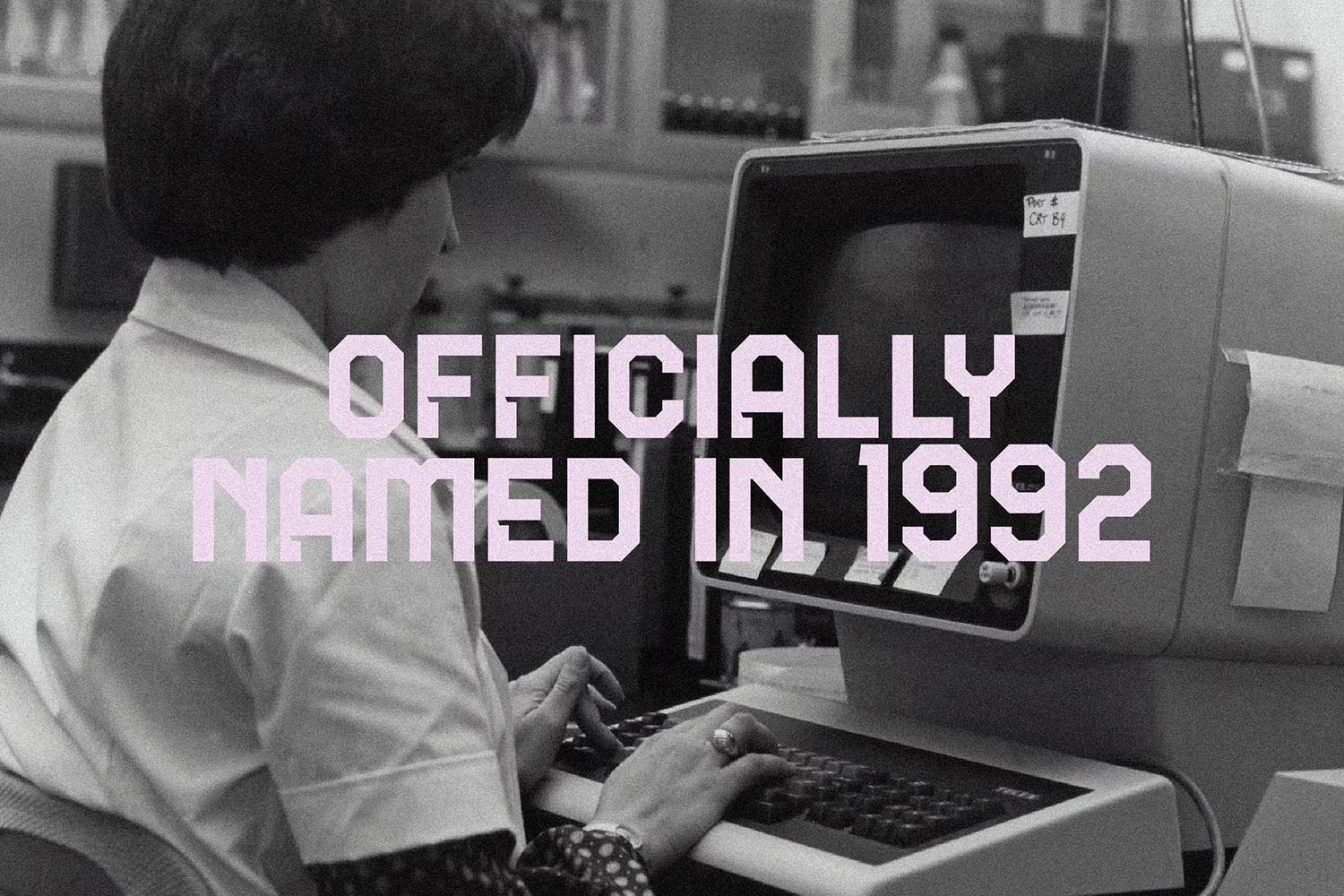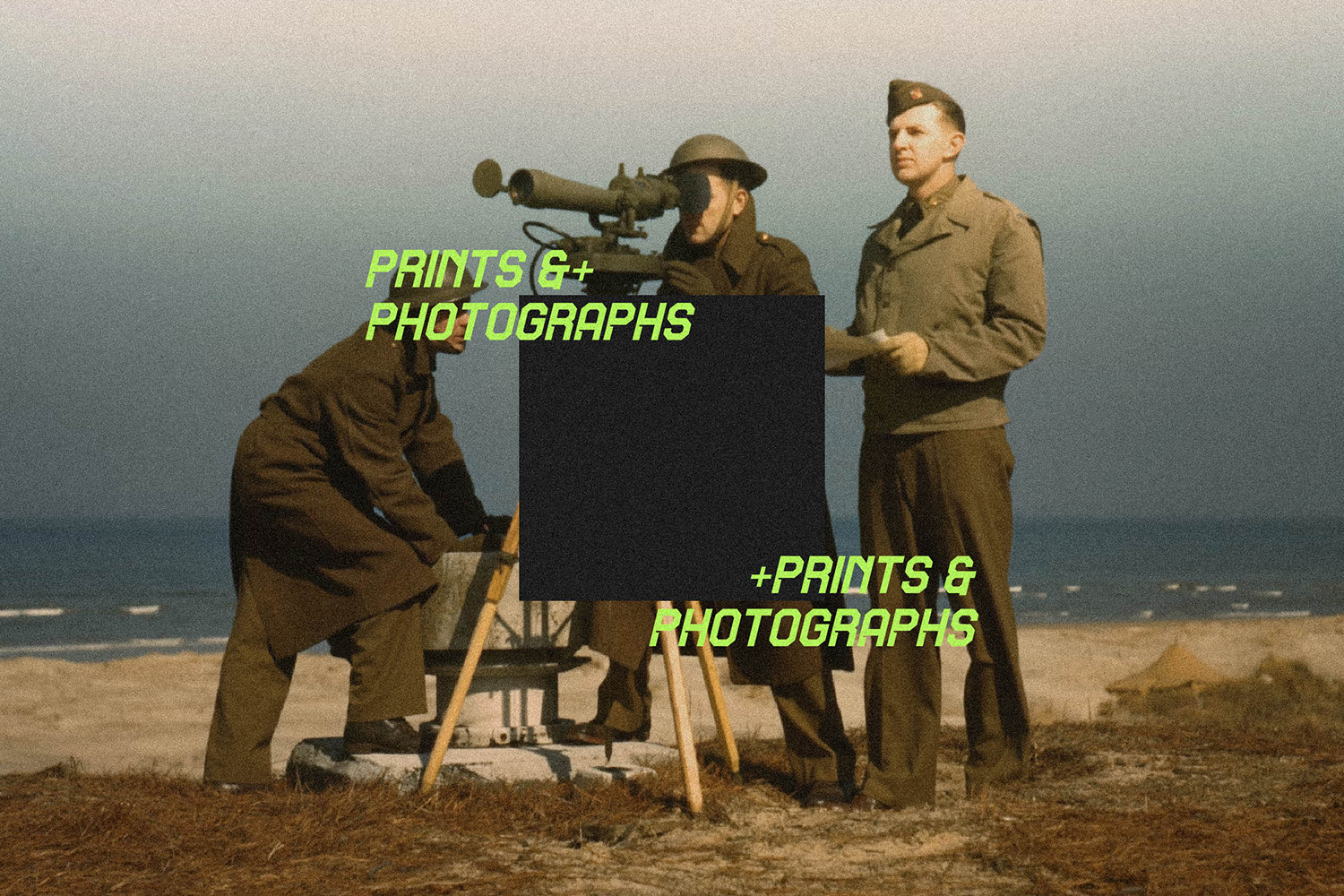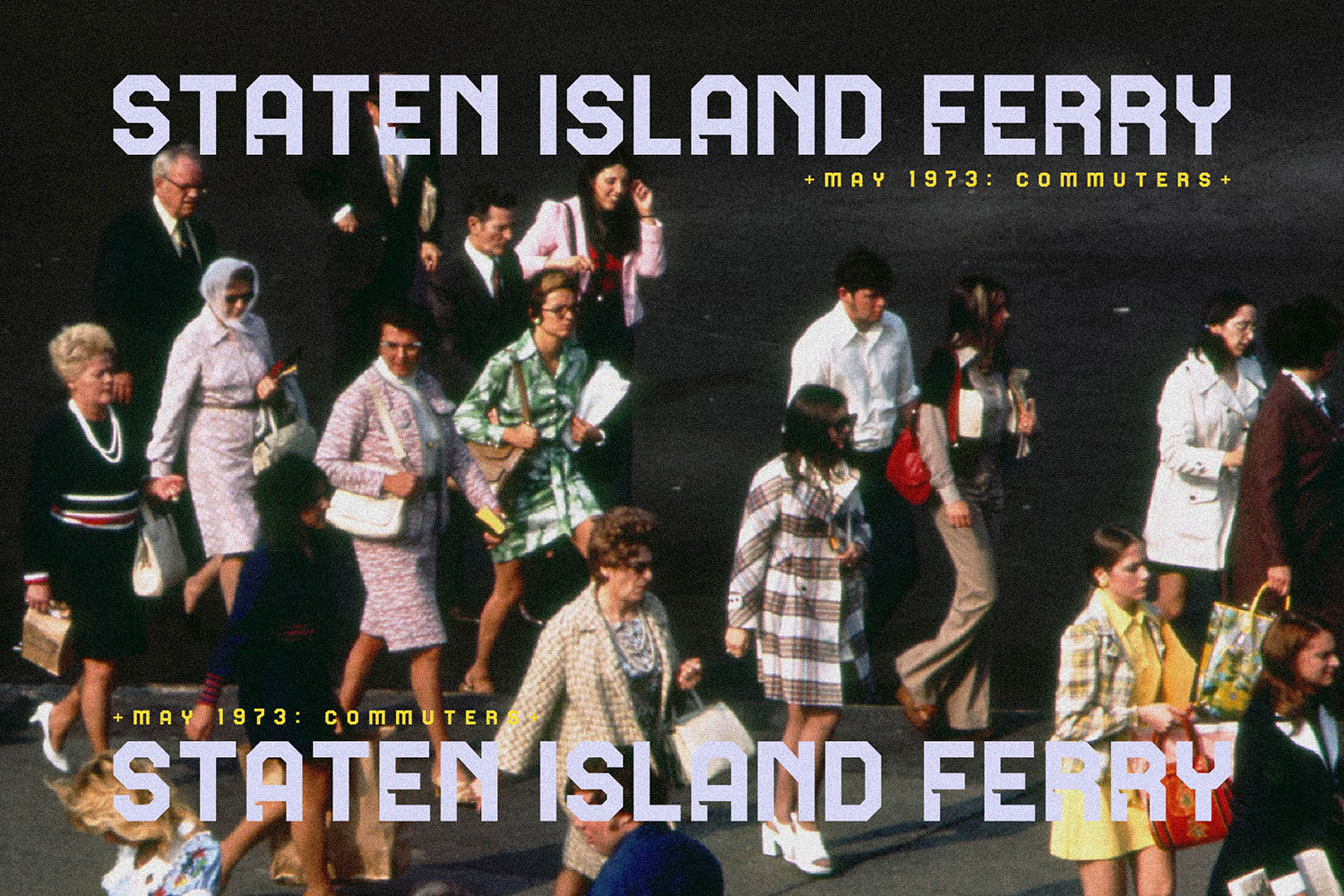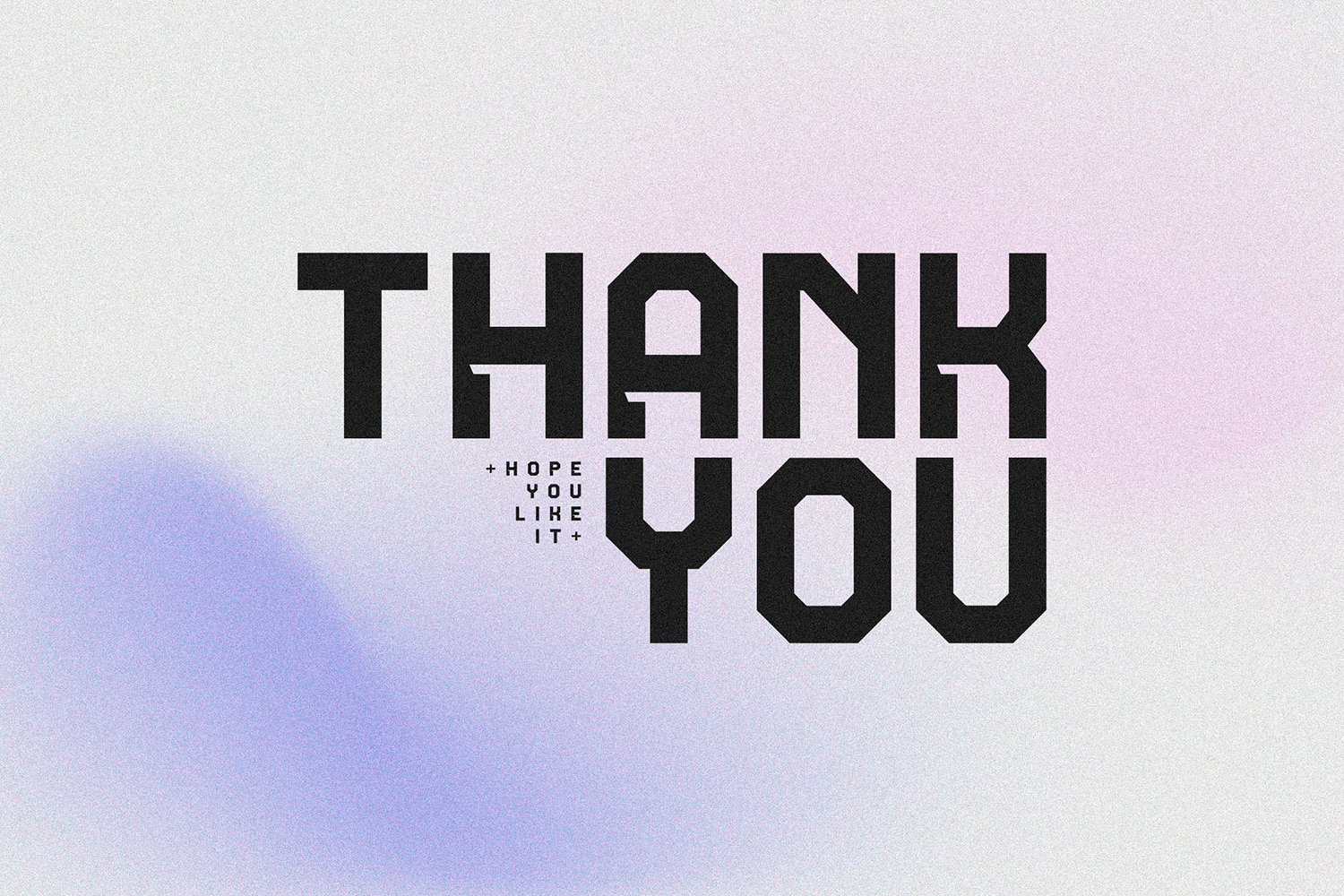
Smokind Free Font
Meet Smokind Free Font, a harmonious blend of modernity and classic elegance in a sans serif font. With its distinct style and contemporary appeal, this typeface is the ideal choice for crafting sophisticated and luxurious logos, captivating book or movie titles, fashion brands, dynamic magazine layouts, stylish clothing designs, expressive lettering, inspiring quotes, and an array of other creative projects. Embrace the versatility and allure of Smokind as it adds a touch of refinement to all your endeavors and leaves a lasting impression. This free typeface was designed by a talented Storytype Studio. If you like it don’t forget to check out the full version.